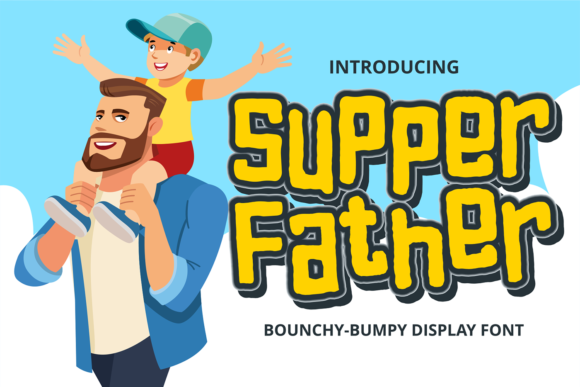
In a realm where words leap off the screen and dance before your eyes, there exists a font that captivates the senses, ignites the imagination, and transports you to a world of visual delight. Enter Supper Father, the display font that is anything but ordinary.
Crafted by the ingenious minds at brithostype, Supper Father is a font that exudes personality and charm. Its bouncy and versatile style is a breath of fresh air, a departure from the mundane and predictable fonts that often populate the digital landscape.
With Supper Father as your creative companion, you'll embark on a typographic adventure, where every letter becomes a playful character, every word a captivating story, and every design a visual masterpiece. Whether gracing the pages of a magazine, adorning a poster, or gracing a website, Supper Father commands attention, leaving an indelible mark on all who behold it.
Its ability to shine on busy backgrounds and captivate as a standalone headline speaks to its versatility, making it the perfect choice for designers, marketers, and creative professionals seeking to make a statement.
Supper Father is more than just a font; it's an experience. It's a journey into the realm of visual storytelling, where the boundaries of creativity are pushed and the ordinary becomes extraordinary. It's a font that breathes life into words, transforming them into vibrant expressions of art and emotion.
So, dear creative soul, embrace the magic of Supper Father and let your imagination soar. Let your designs dance with joy, your words sing with passion, and your projects exude an aura of unforgettable charm. Unleash the power of Supper Father and witness the transformation of your creative visions into captivating realities.